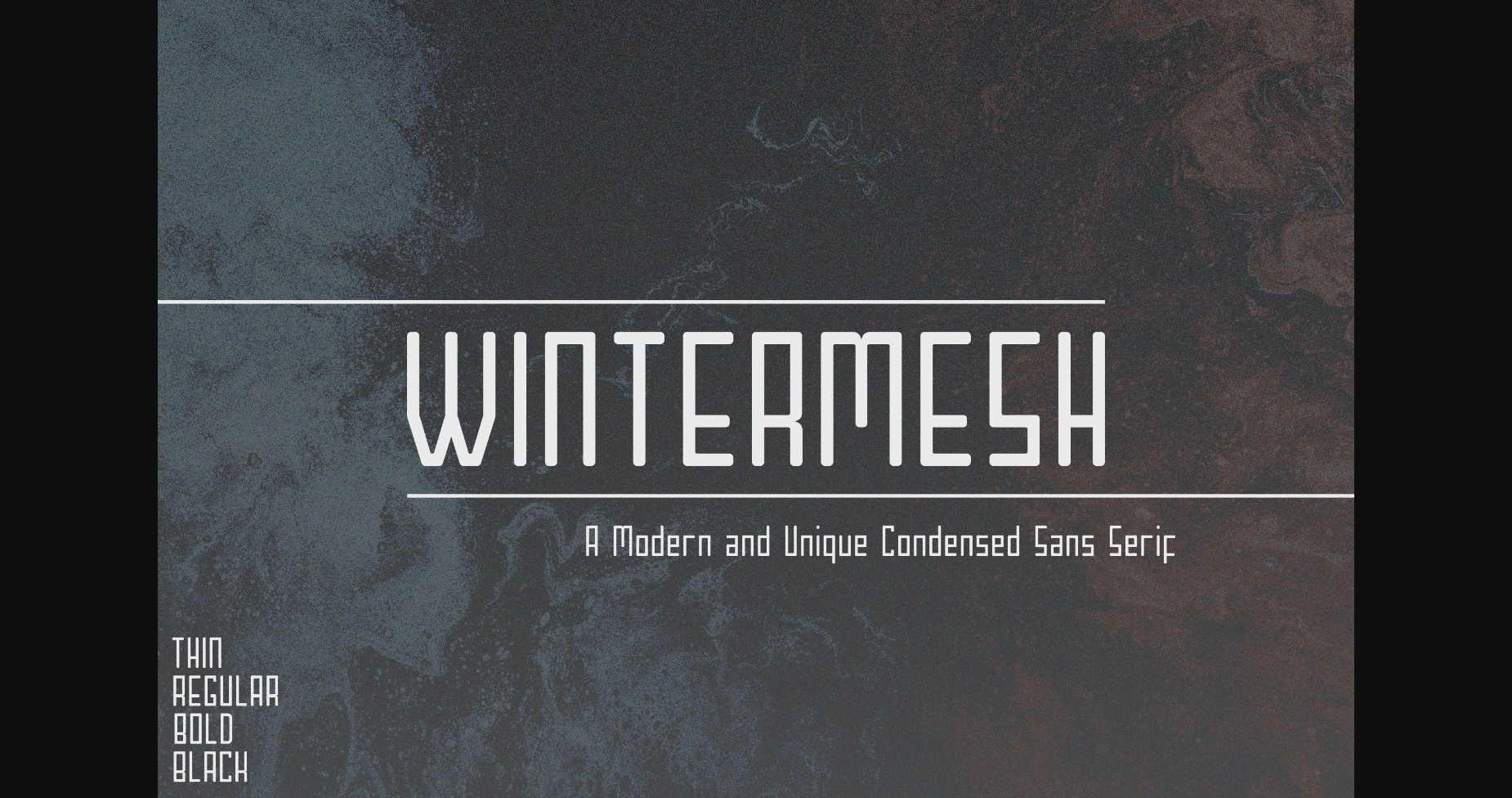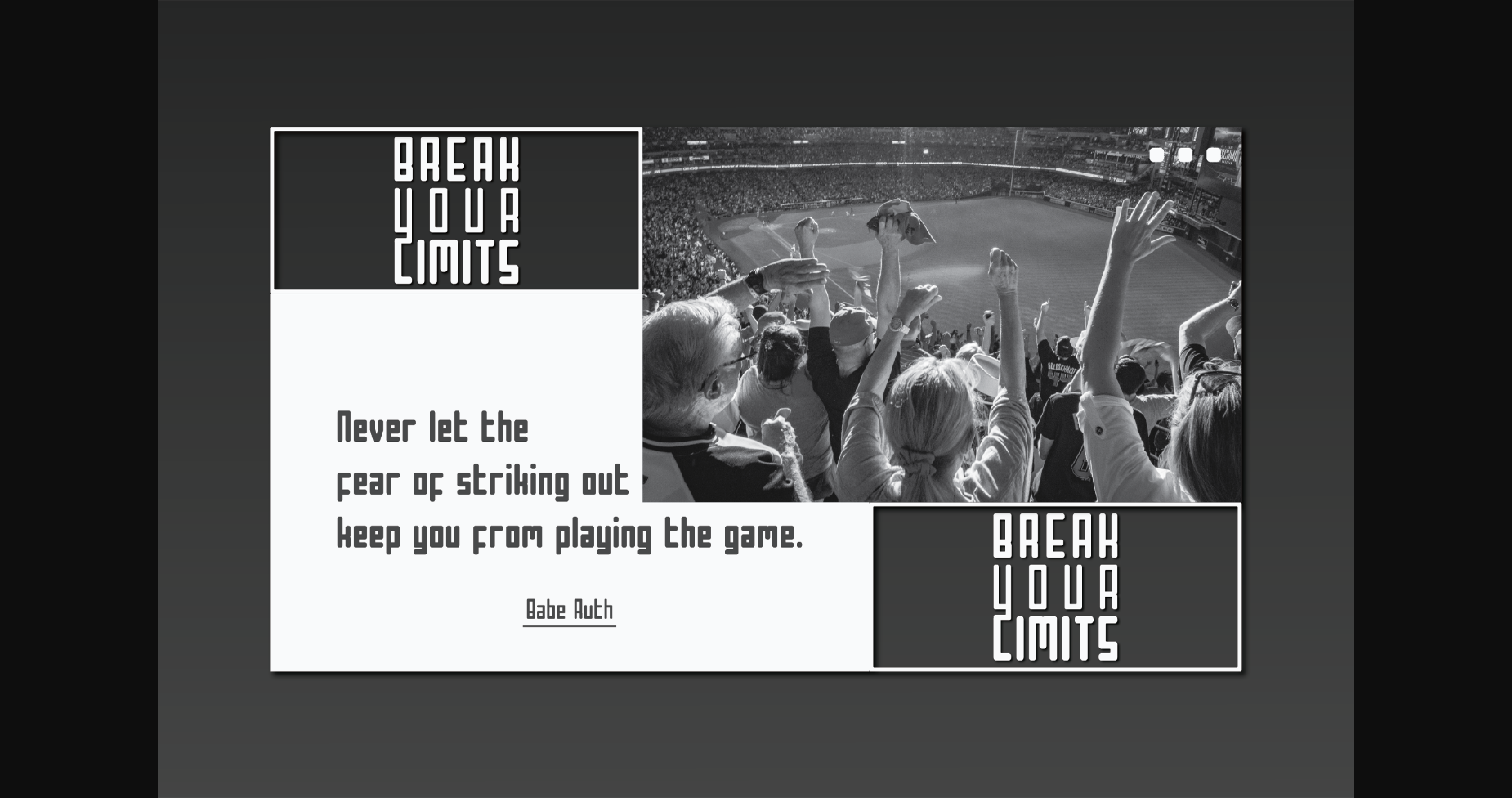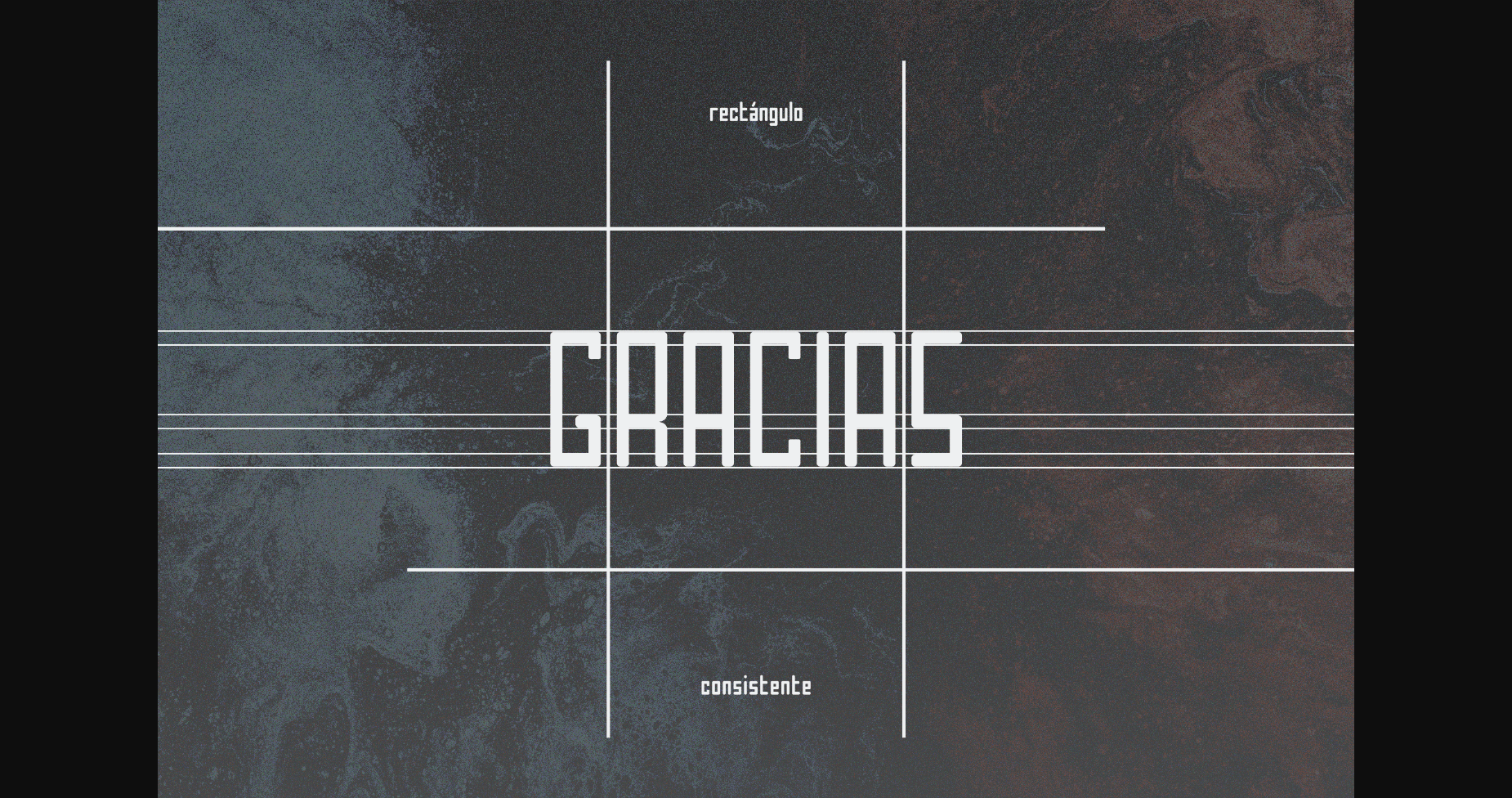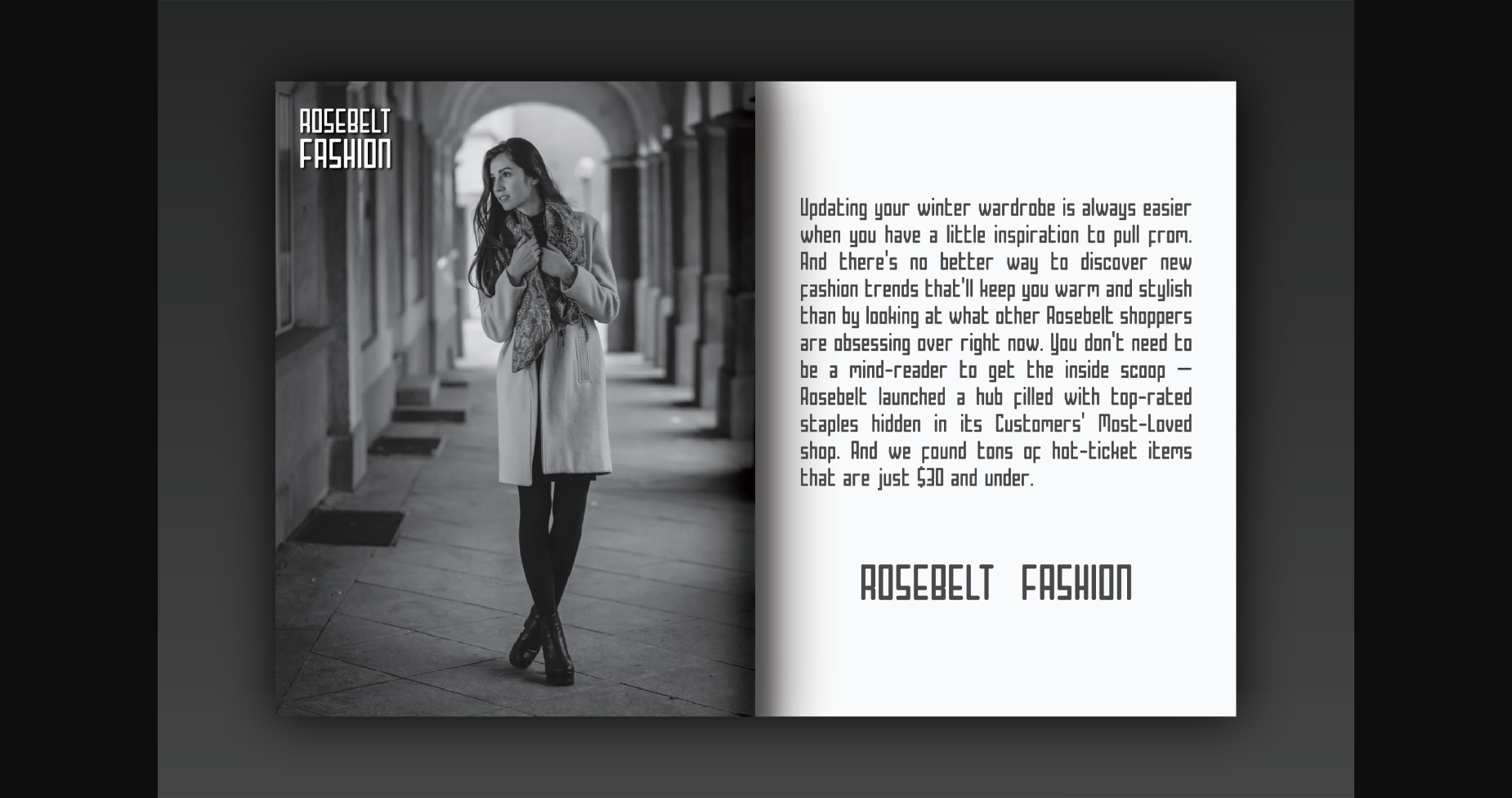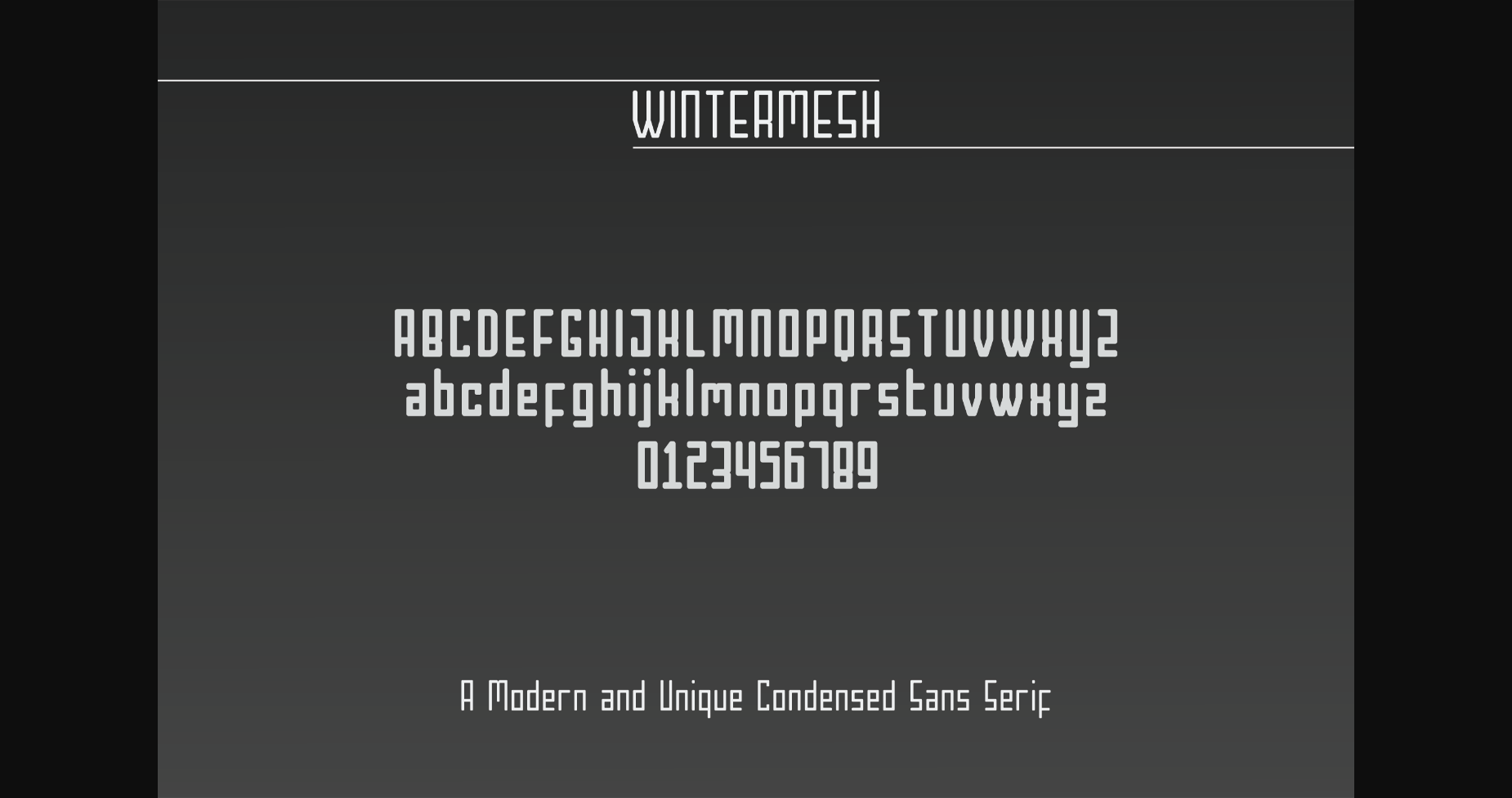
About Wintermesh Font
Wintermesh is a modern and uniquely condensed sans serif font with solid characters. It is suitable for logos, greeting cards, quotes, posters, branding, name cards, stationery, design titles, blog headers, art quotes, typography.
Wintermesh is also suitable for art, modern envelope lettering or book design, hand-drawn designs or watercolor themes, craft designs, any DIY projects, book titles, wedding fonts, pop vintage designs, or any other purpose. It will make your art/design project look pretty and trendy.